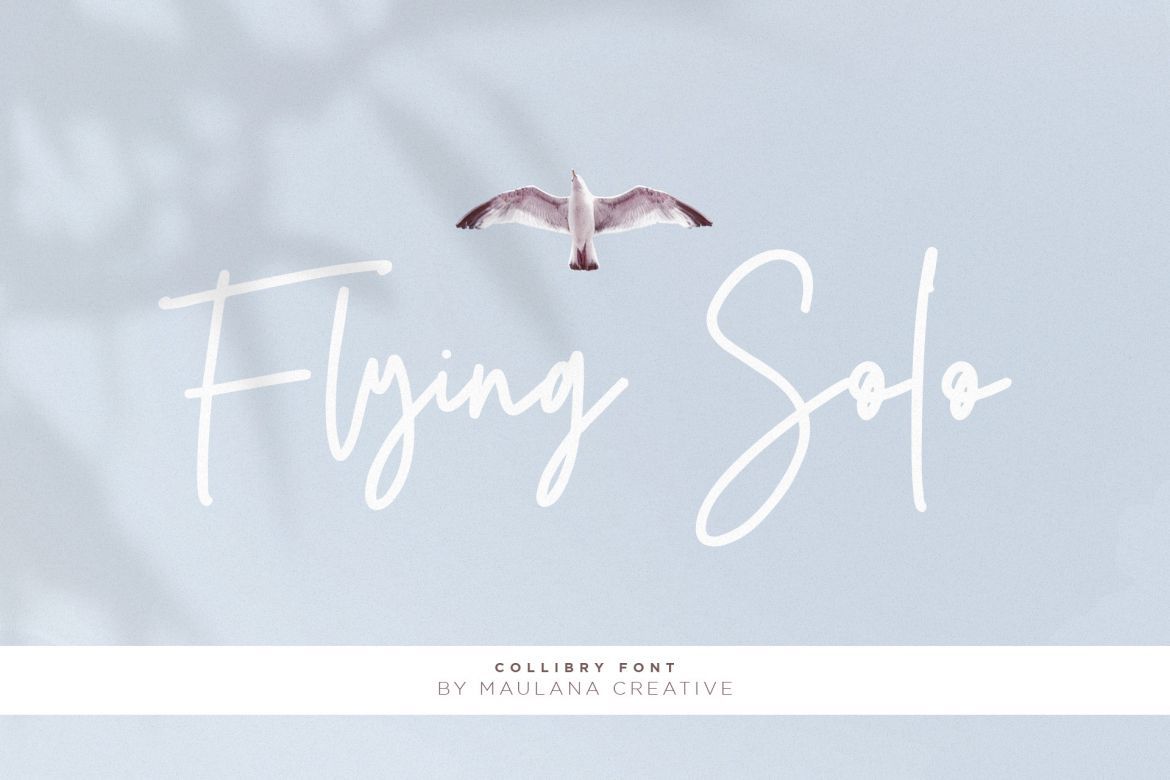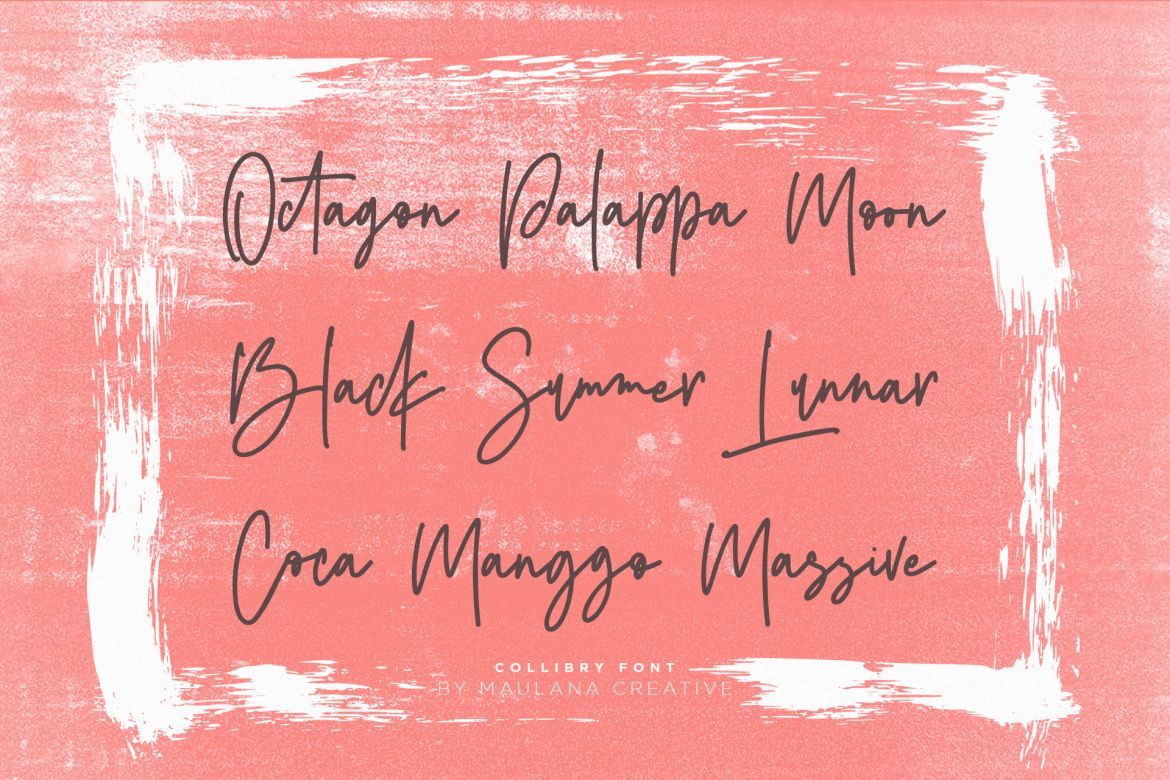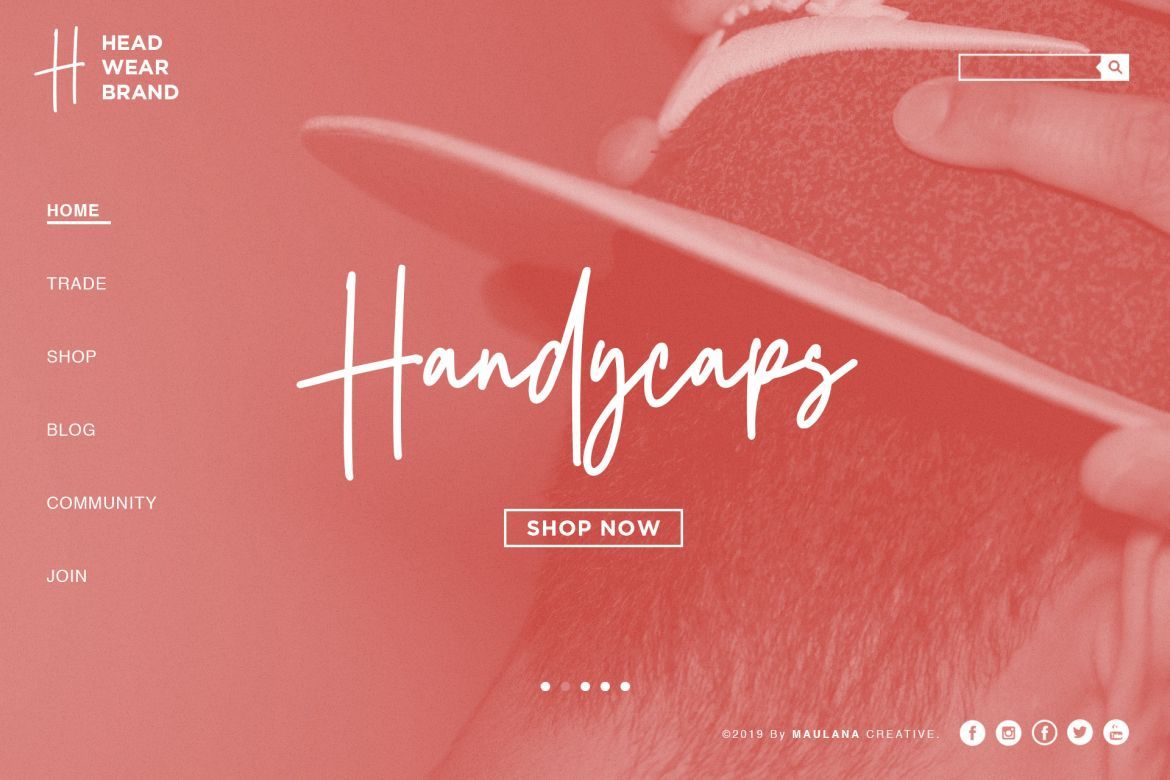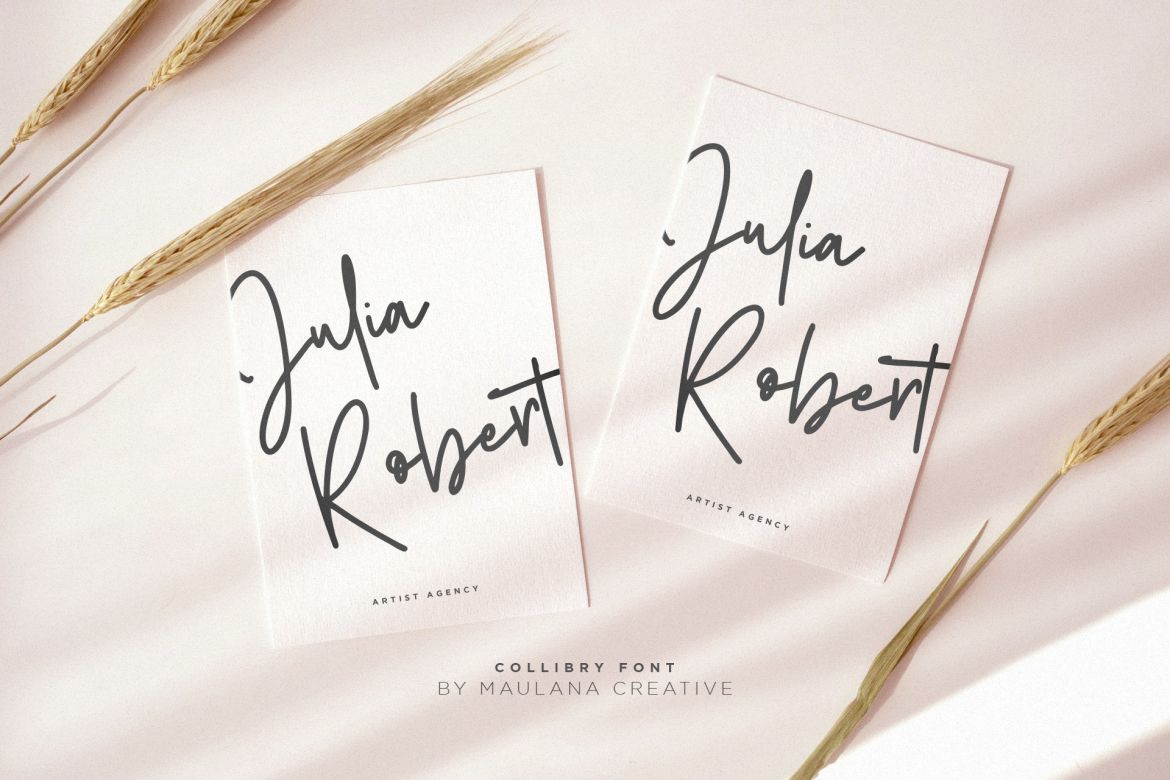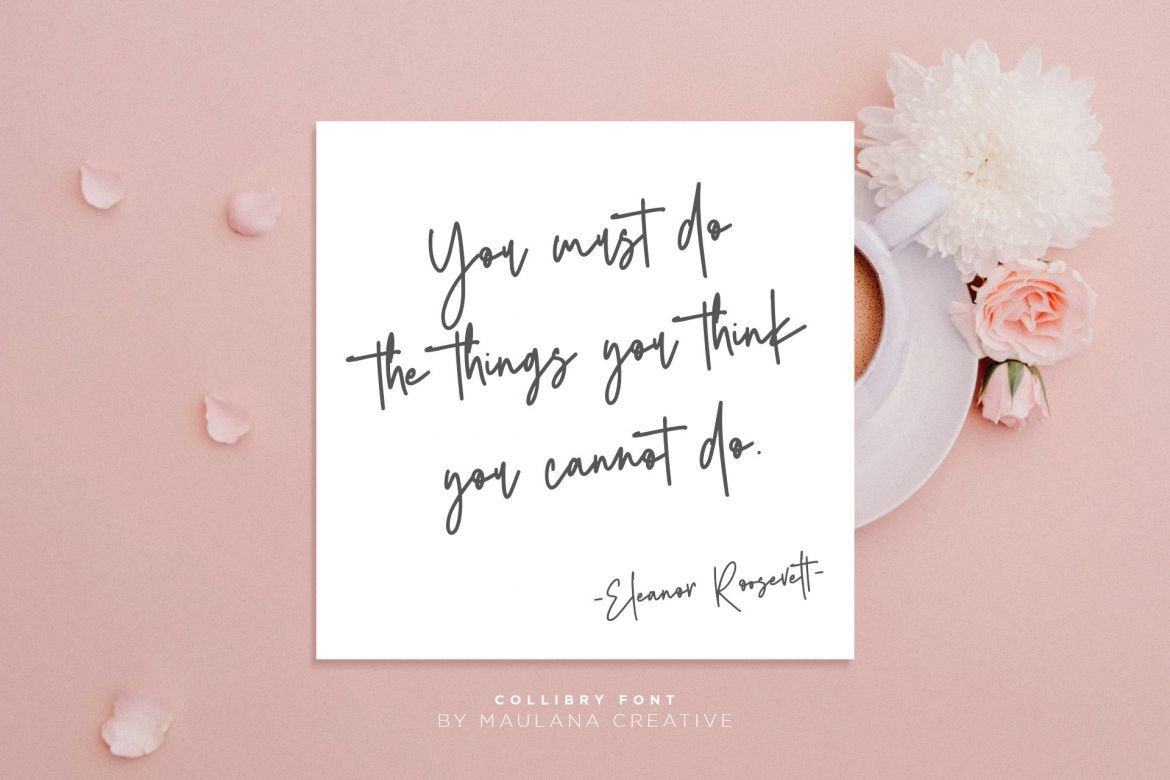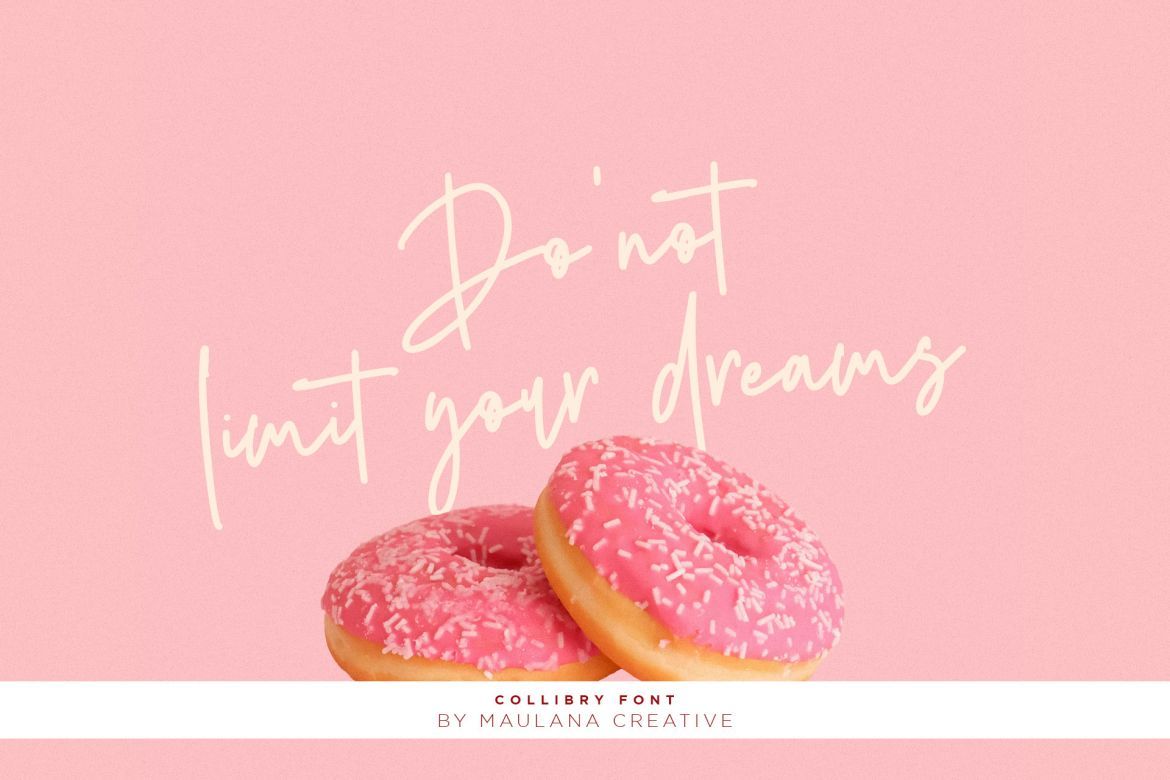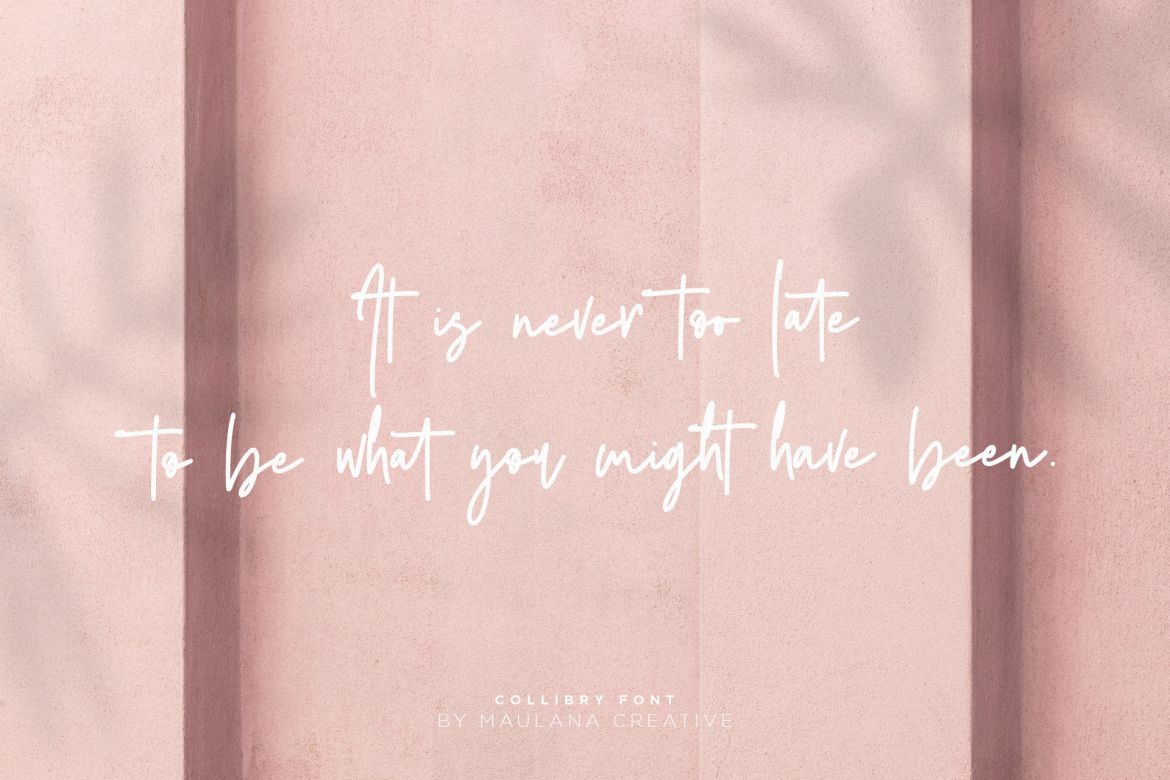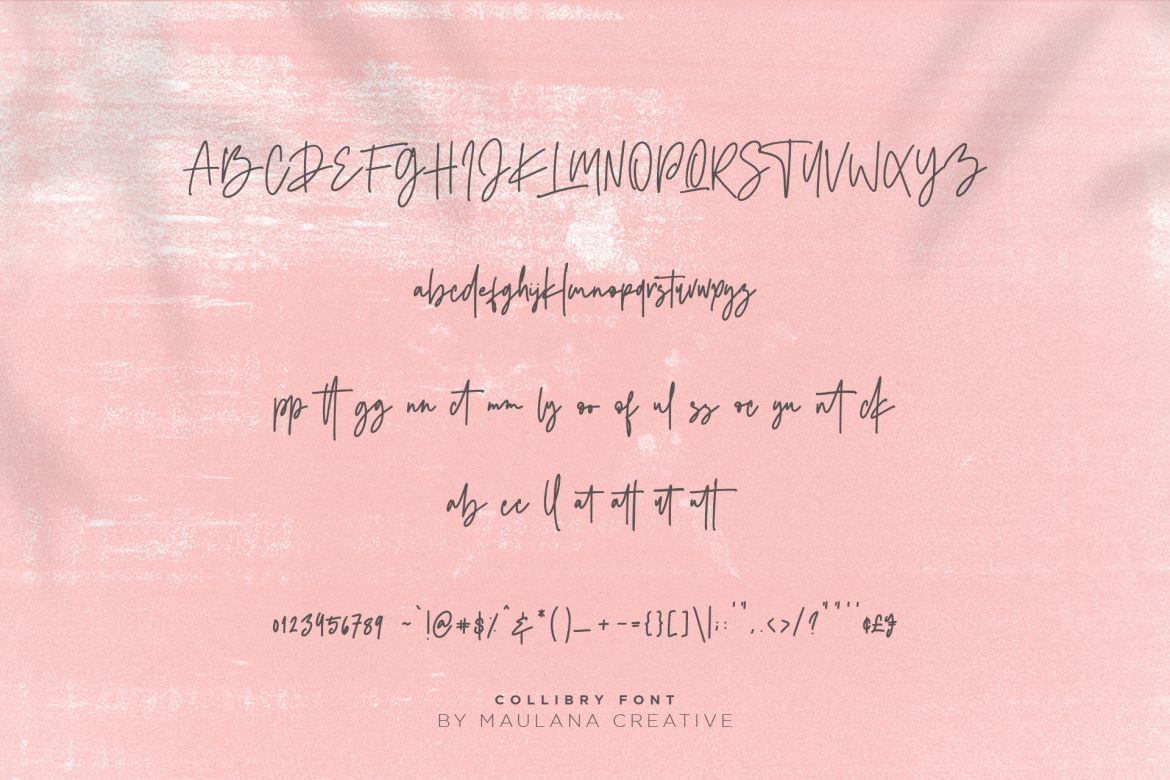
Collibry Font
Give your designs an authentic brush handcrafted feel. "Collibry Font" is perfectly suited to signature, stationery, logo, typography quotes, magazine or book cover, website header, flyer, clothing, branding, packaging design and more.
Ligature Includes: pp tt gg nn ct mm ly oo of ul ss oc yu nt ck ab cc ll at att ut utt